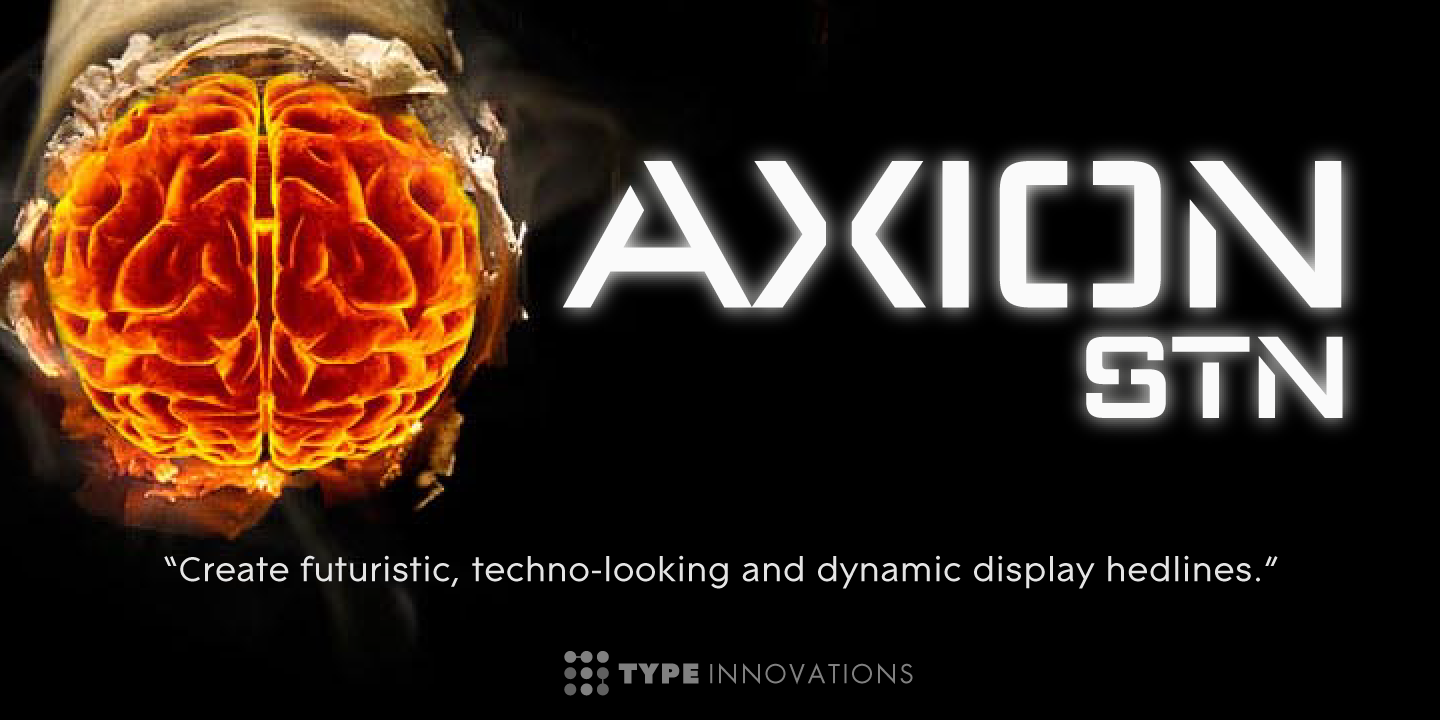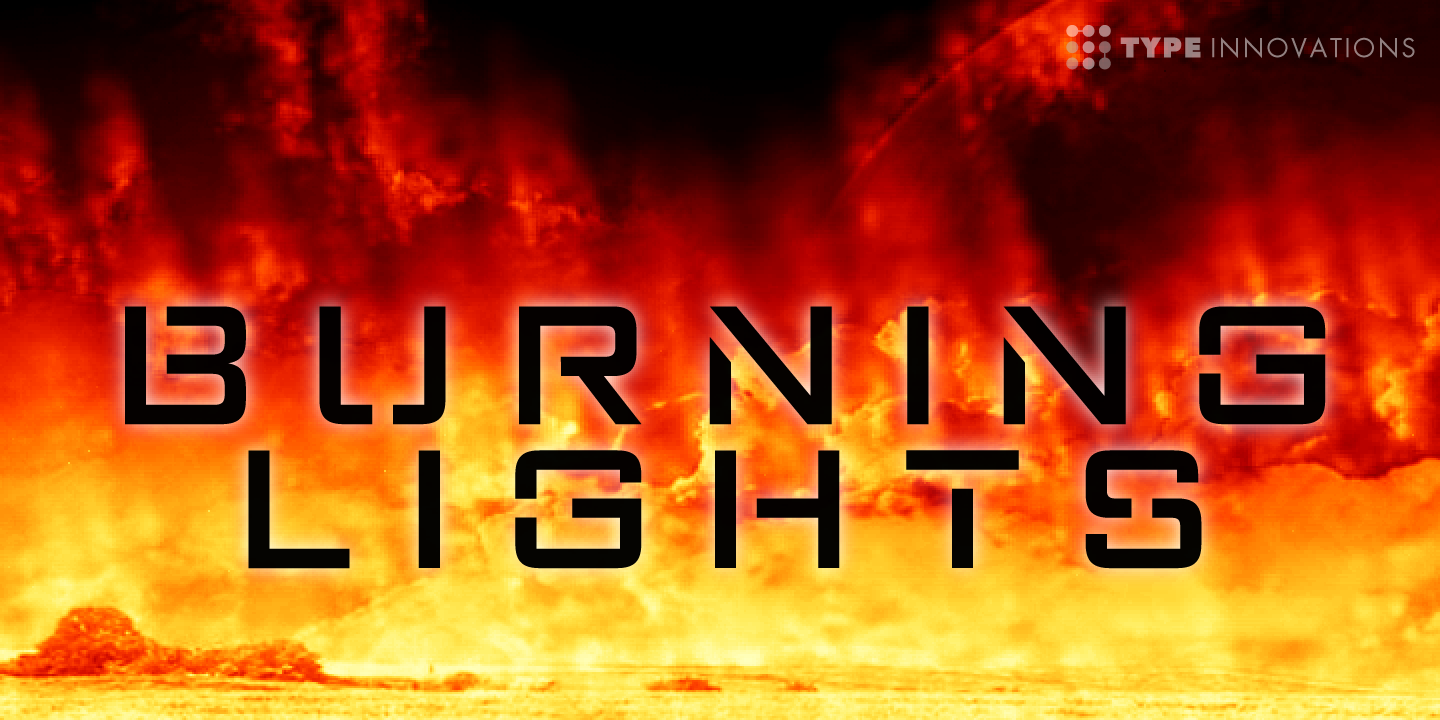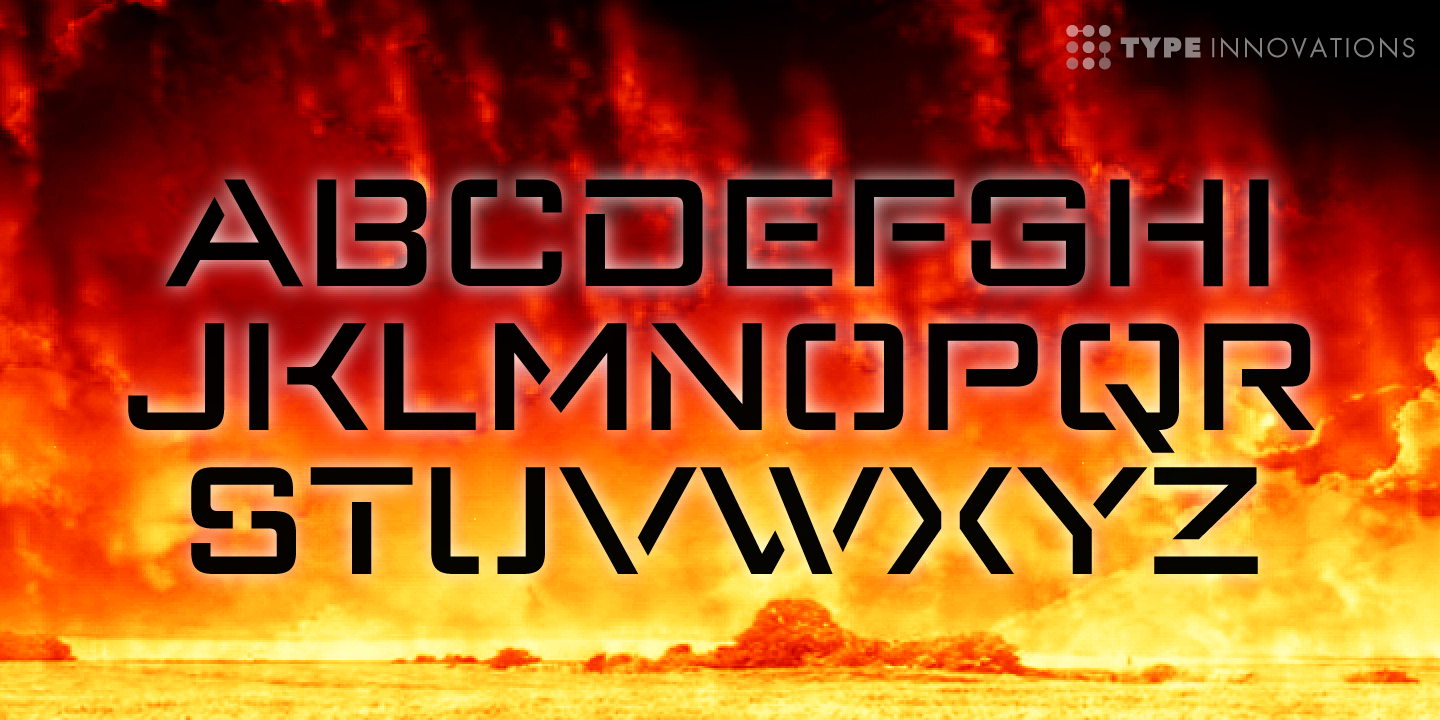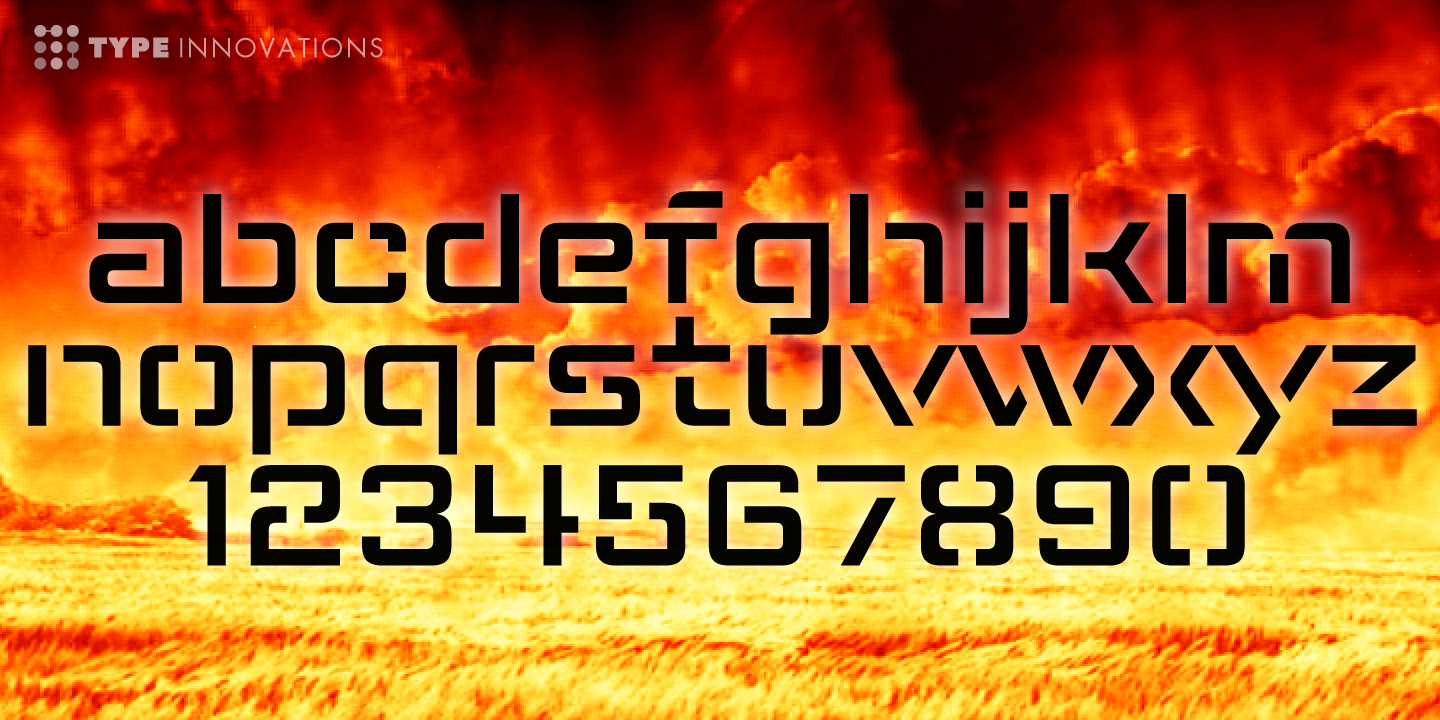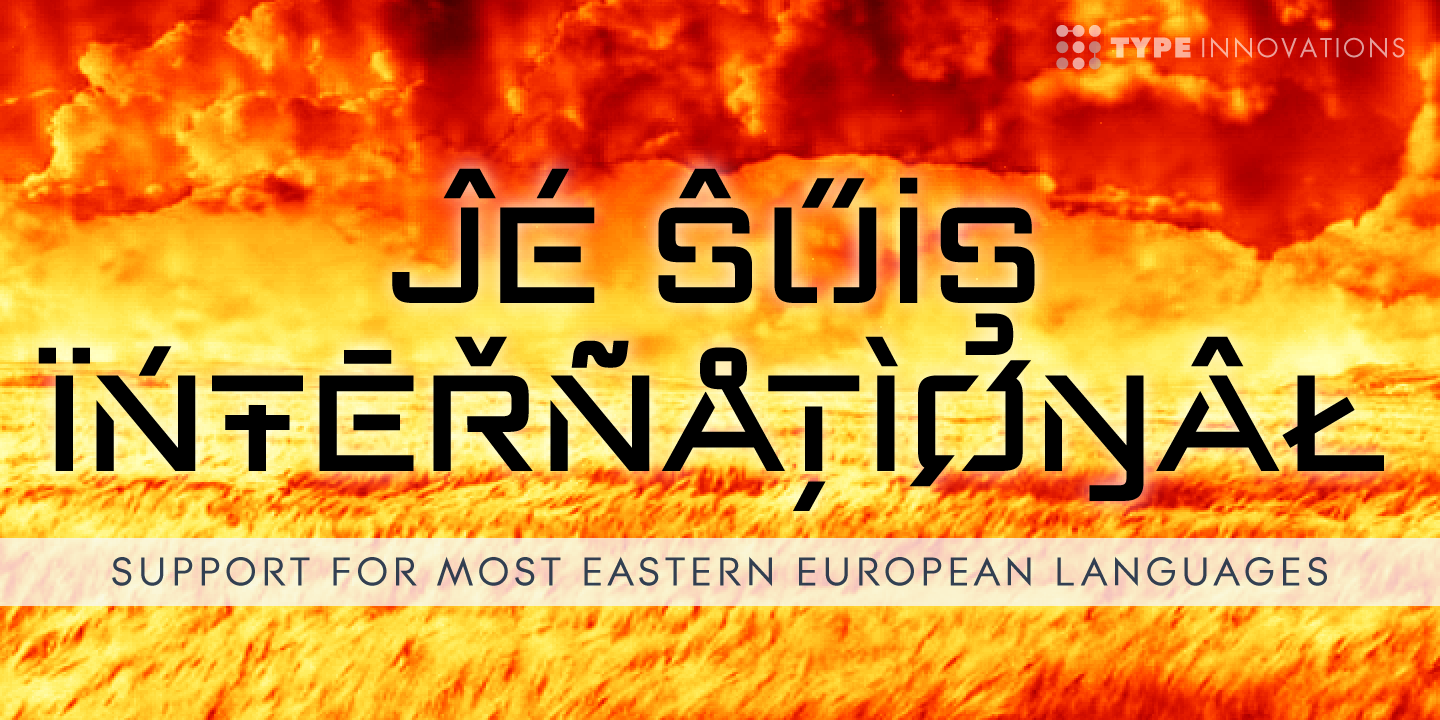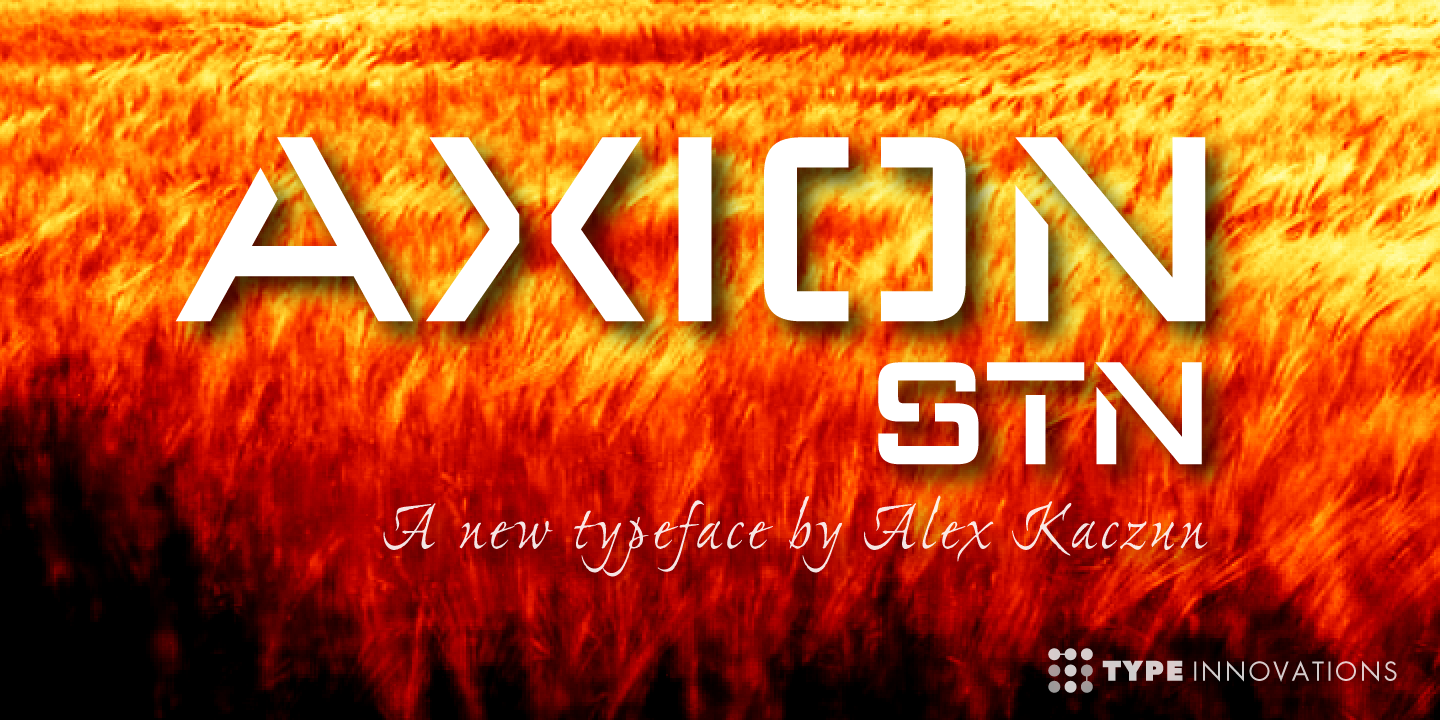
Axion STN
Axion STN is an original design by Alex Kaczun and is a stencil interpretation of his Axion RX-14 font. It is but one of several alternate designs based on his original Axion family of fonts.
The wide gap within this stencil treatment works well with and compliments the spacing in the font, creating a tension within this modern grotesque and adding a class of destinction and interest. This display font is not intended for text use. It was designed specifically for display headlines, logotype, branding and similar applications. The entire font has an original look which is strong, dynamic, machine generated and can be widely used in publications and advertising.
Axion STN is a futuristic, techno-looking and expressive typeface with an appearance of machined parts with sharp and rounded edges. This attractive display comes in roman with lower case and lining figures. The large Pro font character set supports most Central European and many Eastern European languages.